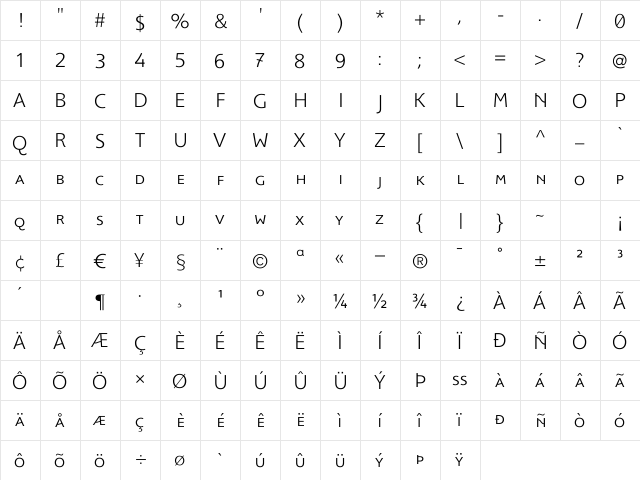
FoxSmallCapsLight Regular
Design Context for FoxSmallCapsLight Typeface
FoxSmallCapsLight offers clean, dependable letterforms without strong stylistic allegiance, making it a practical choice for designers who need flexibility. Its slender proportions lend an understated elegance to any composition.